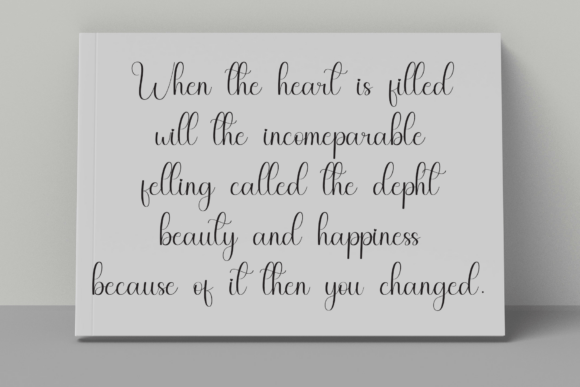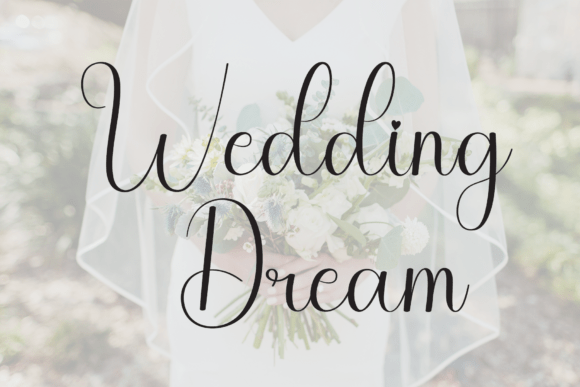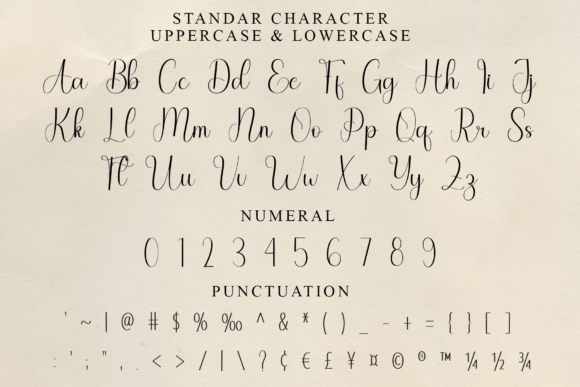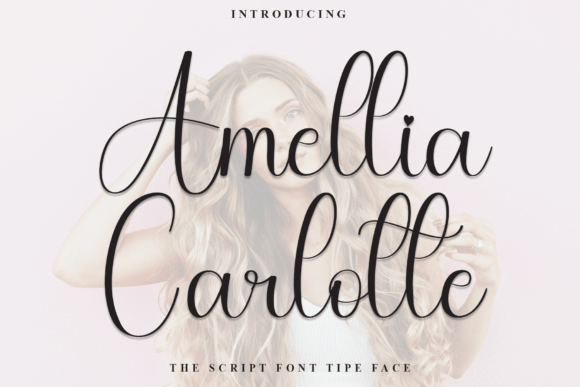
The Elusive Perfect Font: My Encounter with Amellia Carolle
I still remember the countless hours I spent scrolling through font libraries, searching for the perfect script font for a wedding stationery project. My client wanted something elegant, yet playful; something that would make her special day feel truly unforgettable. As I sifted through page after page of fonts, one caught my eye: Amellia Carolle. Its delicate letterforms and soft curves seemed to whisper, “This is the one.” And I was hooked.
An Honest Review of Amellia Carolle
- ✨ Elegant and refined, perfect for feminine branding and heartfelt designs
- ✅ Delicate letterforms and soft curves that add a touch of sophistication
- 💕 Charming heart accent that adds a playful touch
- 🎉 Versatile and suitable for various design projects, from wedding stationery to boutique logos
While Amellia Carolle is an exceptional font, there are a few things to keep in mind:
- ⚠️ Some users may find the font a bit too delicate for certain design applications
- 🤔 Limited availability of stylistic alternates, which may limit design flexibility
The Story Behind Amellia Carolle
Amellia Carolle was designed with the intention of creating a font that would evoke a sense of elegance and sophistication, while still being playful and charming. The designer aimed to create a font that would be perfect for feminine branding and heartfelt designs, such as wedding stationery and boutique logos.
Q: What is Amellia Carolle’s personality?
A: Amellia Carolle is a graceful and romantic script font with a charming, elegant feel.
Q: What design projects is Amellia Carolle best suited for?
A: Amellia Carolle is perfect for feminine branding, wedding stationery, boutique logos, social media posts, and beauty packaging.